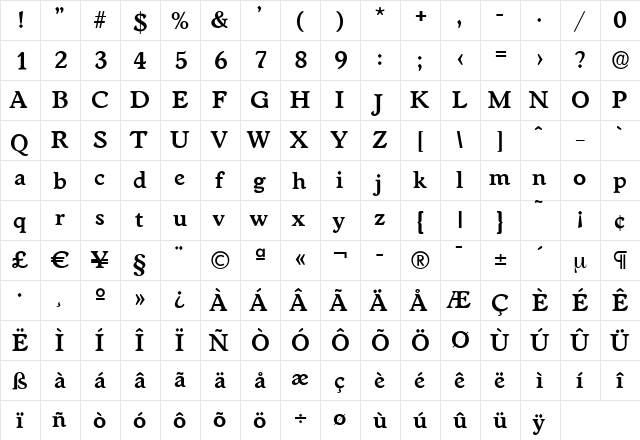
DonBecker Bold
Design Context for DonBecker Typeface
DonBecker offers clean, dependable letterforms without strong stylistic allegiance, making it a practical choice for designers who need flexibility. The heavy weight commands attention and anchors typographic hierarchies.